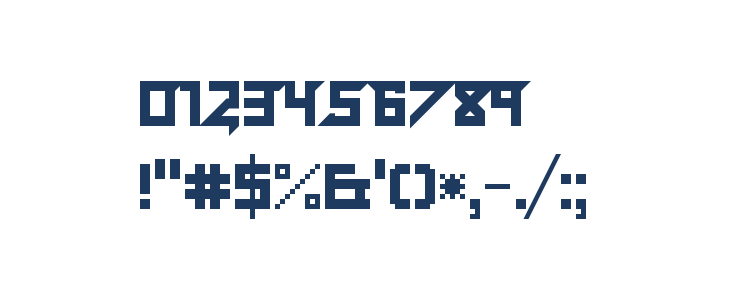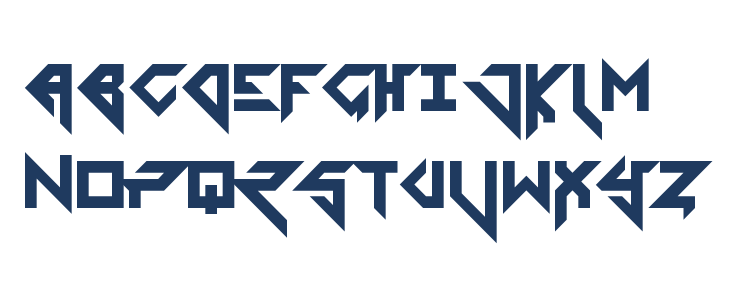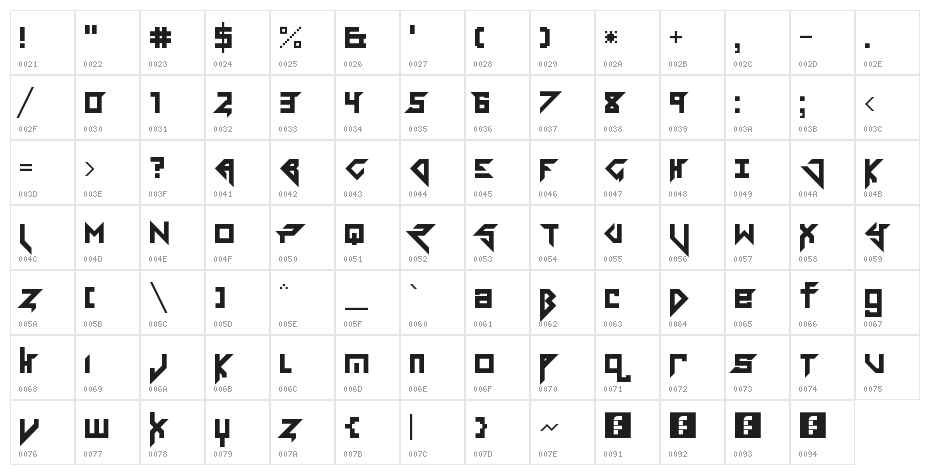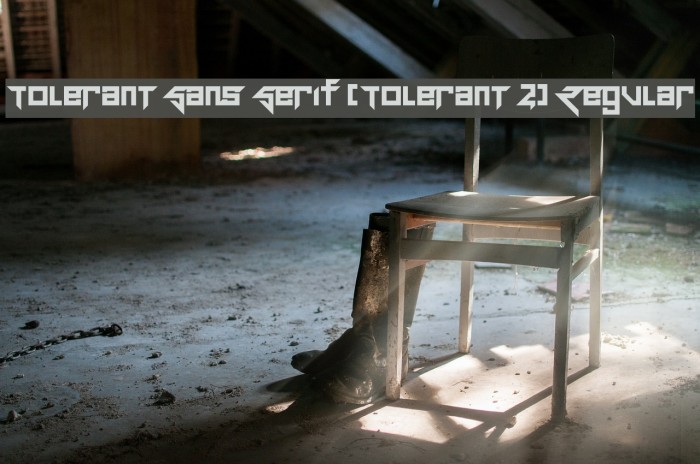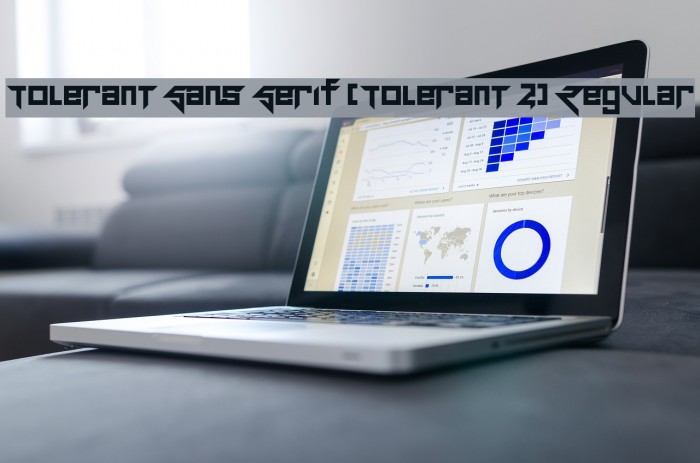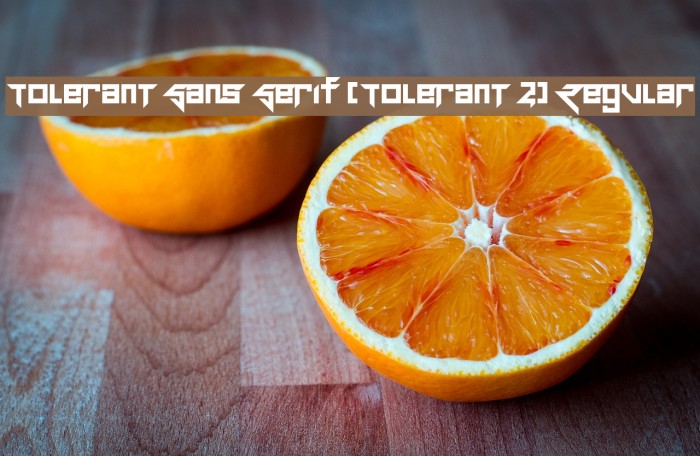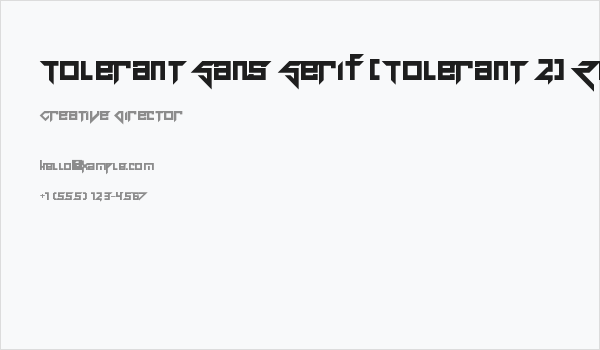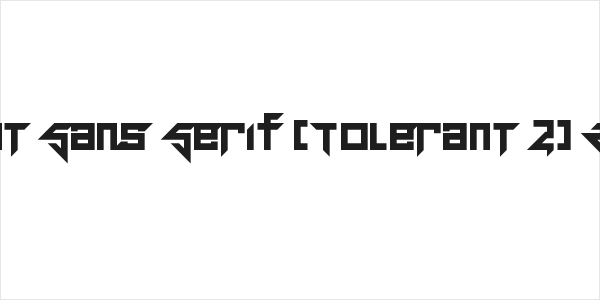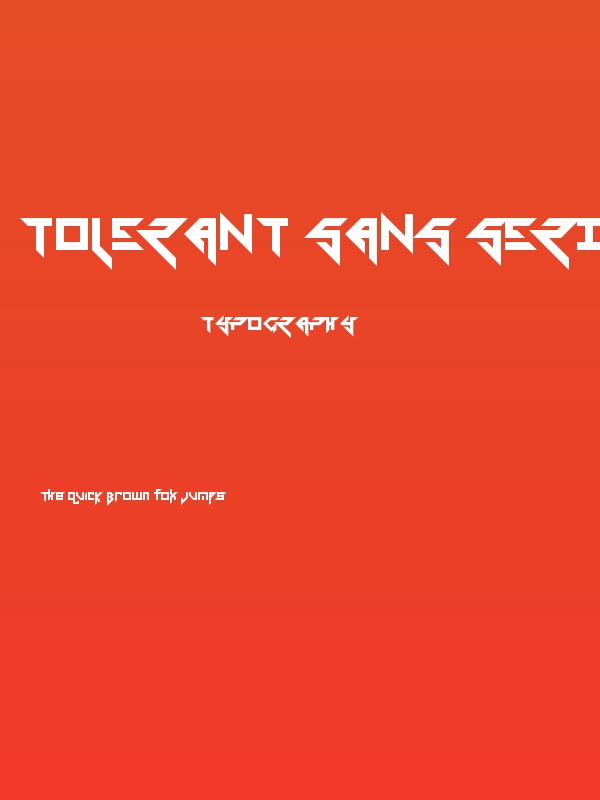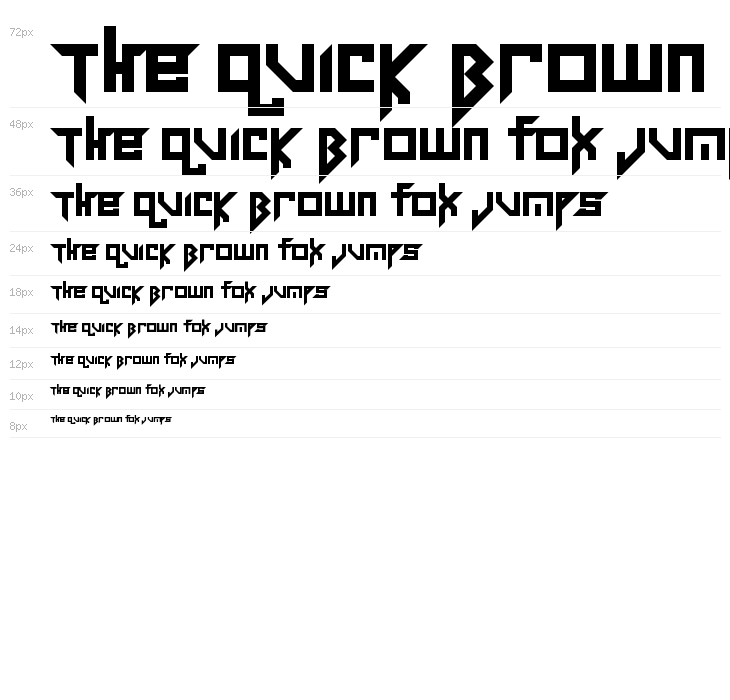
This font features a bold, geometric design with sharp angles and a futuristic aesthetic. The characters are constructed with thick lines and prominent triangular shapes, giving it a strong, dynamic presence. The uppercase and lowercase letters maintain a consistent style, with the lowercase being slightly more compact. Numbers and special characters follow the same angular theme, ensuring uniformity across the font. The overall look is modern and edgy, making it suitable for projects that require a standout, unconventional typeface.
| Proposed Projects | Ideal for sci-fi themed designs, video game graphics, posters, and branding that requires a modern, edgy look. |